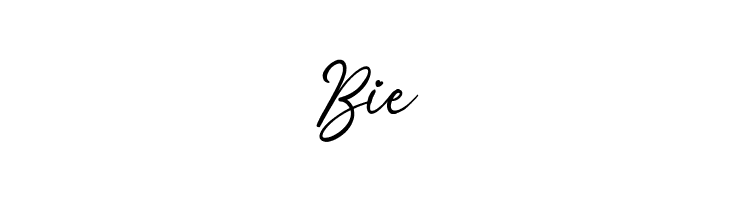
( Fonts by Pria Ravichandran )
A bold, modern sans-serif font with excellent readability.
( Fonts by Yuriko & Co )
Elegant cursive script font.
( Fonts by Kurnia Setyadi )
A playful, bold font with rounded strokes and smooth curves.
An elegant script font with flowing cursive letters and intricate swashes.